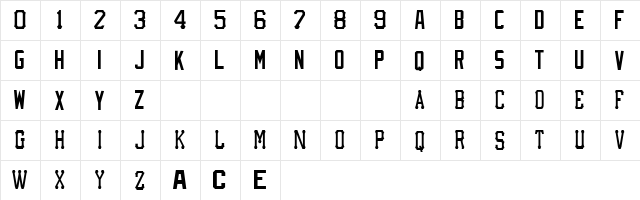
MLB Pirates Regular
Design Context for MLB Pirates Typeface
MLB Pirates offers clean, dependable letterforms without strong stylistic allegiance, making it a practical choice for designers who need flexibility.